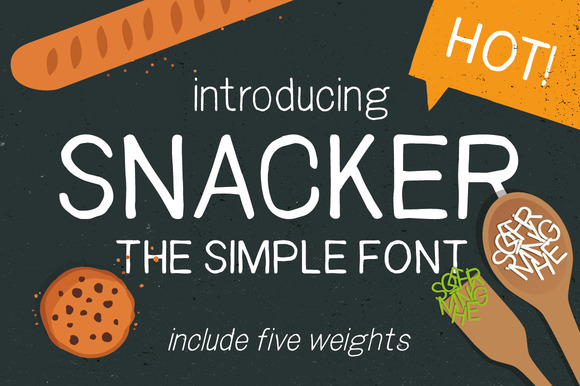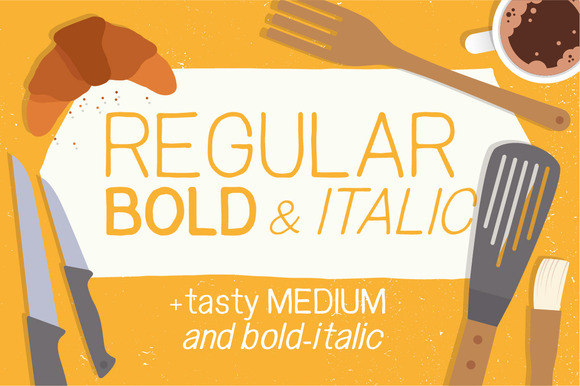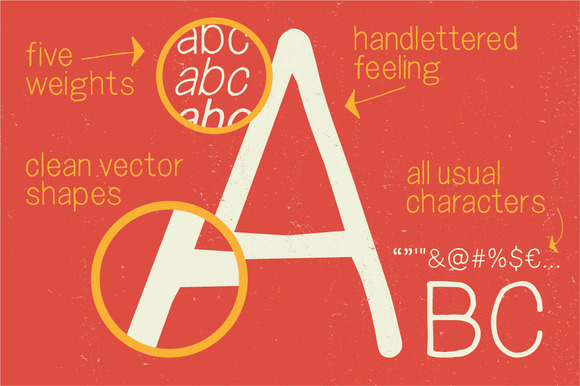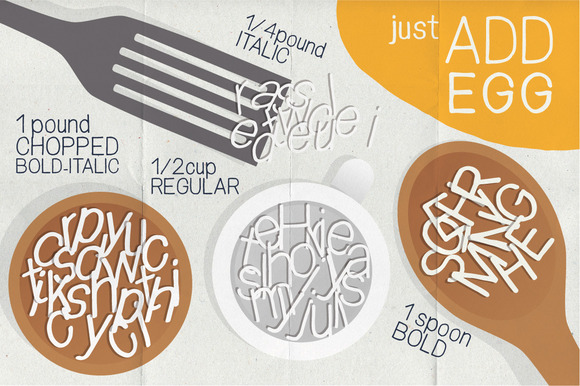
Snacker Font
About the Snacker Font
The Snacker Font offers a perfect balance of form and function for your design needs. Snacker is a universal hand-lettered font with a shaky finish. It is a calm and nice font ready to be used for various purposes! Snacker includes upper and lowercase letters, all usual English characters and comes in five weights. It gives you tons of options on how to use it. You may find yourself using it again and again.